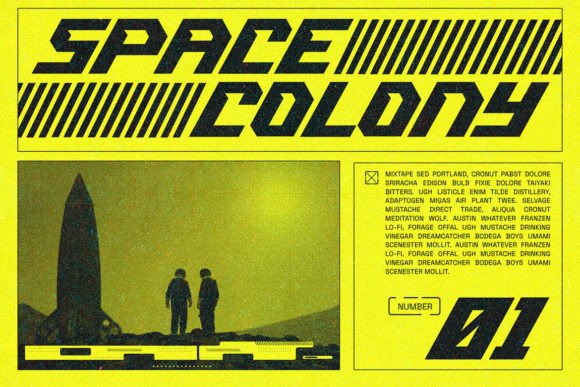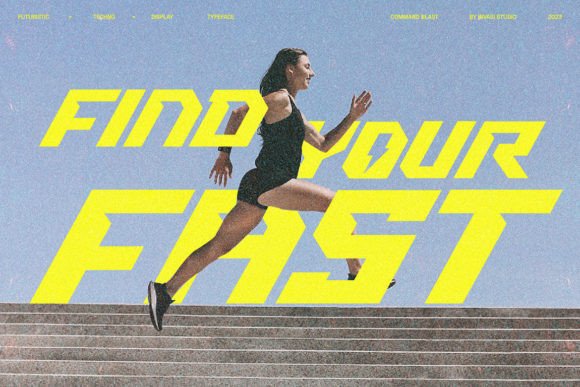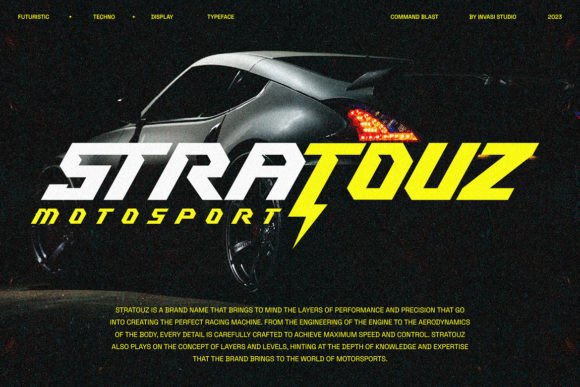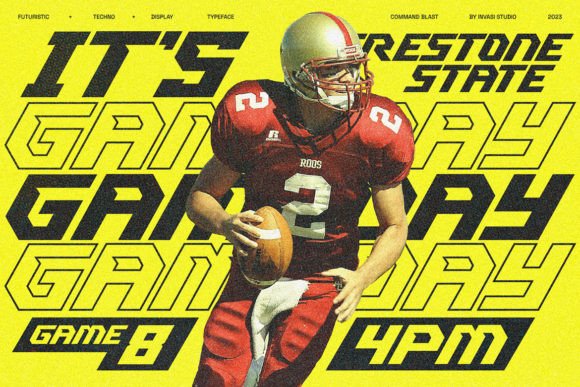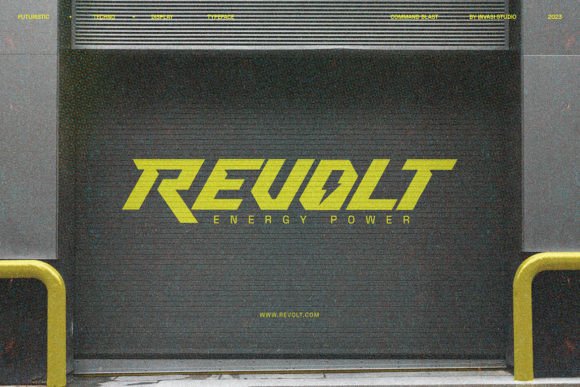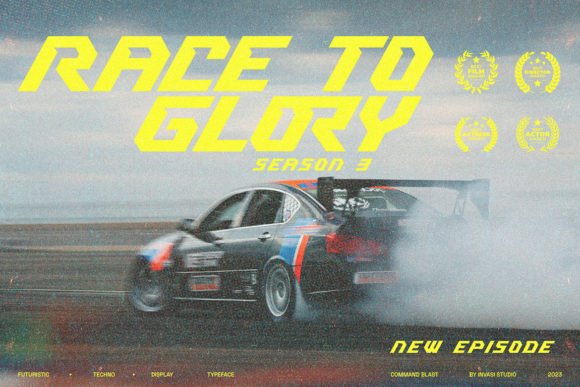
Unleash the Power of Command Blast Font: Elevate Your Designs with a Futuristic Twist
In the realm of typography, few fonts manage to make a statement like Command Blast. This bold, futuristic display font is designed to pack a serious punch, making it the perfect addition to any design project that demands attention and excitement. What sets Command Blast apart from other fonts is its unique glyph design, featuring thunder alternates that add a level of dynamism and energy to your creations.
A Font that Embodies the Spirit of Innovation
Command Blast is more than just a font – it’s an experience. Its edgy, high-tech vibe makes it an excellent choice for projects related to robotics, gaming, sci-fi, or futuristic branding. Imagine using Command Blast to create a logo for a cutting-edge tech startup or to design a title sequence for a sci-fi movie. The font’s bold and futuristic aesthetic instantly conveys a sense of innovation and forward-thinking, making it perfect for projects that require a strong, attention-grabbing presence.
One of the most exciting features of Command Blast is its versatility. The font comes with alternate characters, ligatures, and Latin Multilingual Support, offering endless creative possibilities for your designs. Whether you’re a designer looking to add a unique touch to your project or a crafter seeking to create something truly special, Command Blast provides the tools you need to bring your vision to life.
Perfect for Speed-Related Themes
Command Blast’s edgy and high-tech vibe also makes it an excellent choice for sports cars, garages, and other speed-related themes. Imagine using this font to create a logo for a high-performance sports car or to design a brochure for a cutting-edge car garage. The font’s bold and dynamic aesthetic perfectly captures the spirit of speed and performance, making it an ideal choice for projects that require a strong, attention-grabbing presence.
Key Features of Command Blast Font
- Unique Glyph Design: Command Blast features a unique glyph design with thunder alternates, adding a level of dynamism and excitement to any design project.
- Alternate Characters: The font comes with alternate characters, allowing you to add a unique touch to your designs.
- Ligatures: Command Blast features ligatures, providing a range of creative possibilities for your designs.
- Latin Multilingual Support: The font supports multiple languages, making it a versatile choice for designers and crafters around the world.
How to Use Command Blast in Your Designs
- Pair it with a neutral font: Command Blast is a bold font, so it’s best to pair it with a neutral font to create contrast and balance in your design.
- Experiment with colors: The font’s bold and dynamic aesthetic works well with a range of colors, from bright and bold to dark and moody.
- Play with textures: Adding textures to your design can add depth and interest. Try combining Command Blast with different textures to create a unique look.
Command Blast is a game-changing font that’s perfect for designers and crafters looking to add a futuristic twist to their projects. With its unique glyph design, alternate characters, ligatures, and Latin Multilingual Support, this font offers endless creative possibilities. Whether you’re working on a robotics project, a gaming design, or a futuristic branding campaign, Command Blast is the perfect choice. So why settle for a ordinary font when you can make a statement with Command Blast?